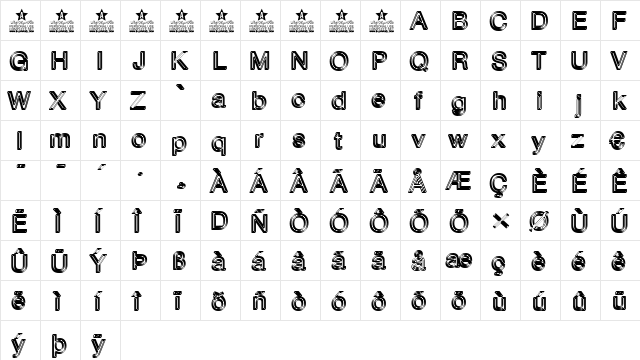
Ibiza Crystal Personal Use Regular
| Foundry | Billy Argel |
| Designer | Billy Argel |
Design Context for Ibiza Crystal Personal Use Typeface
Ibiza Crystal Personal Use is a composed and adaptable typeface that performs quietly and consistently across a wide range of design contexts.